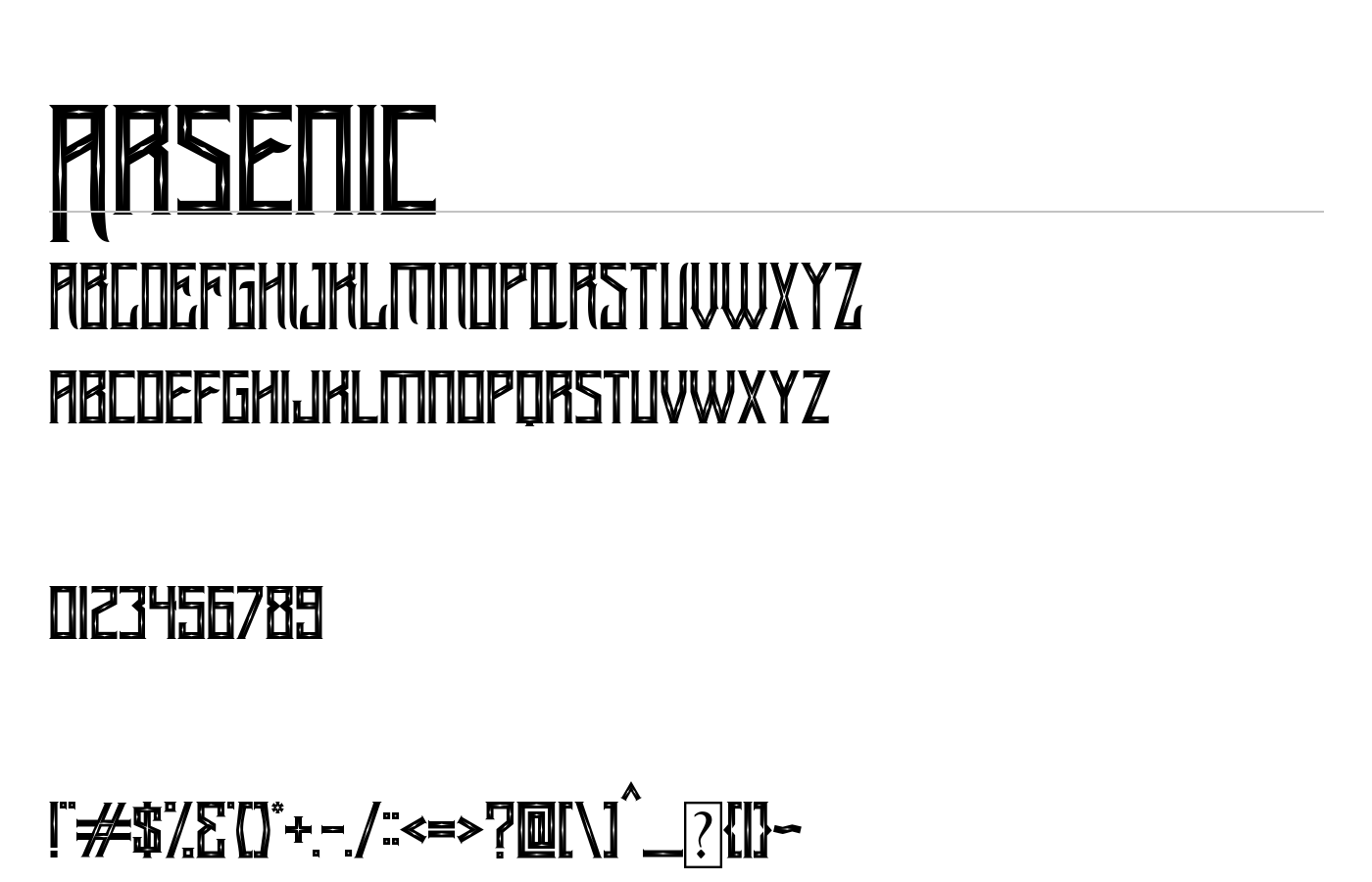
Arsenic is a narrow, condensed sans serif font with a tall x-height and sharp, angular strokes that create a striking, edgy look. Its high contrast between thick and thin lines and geometric shapes give it a modern, somewhat futuristic vibe, making it ideal for bold headlines, posters, and branding that seeks a distinctive, commanding presence. This font works best where attention-grabbing style and strong personality are needed, such as in fashion, technology, or editorial design.
Arsenic Font